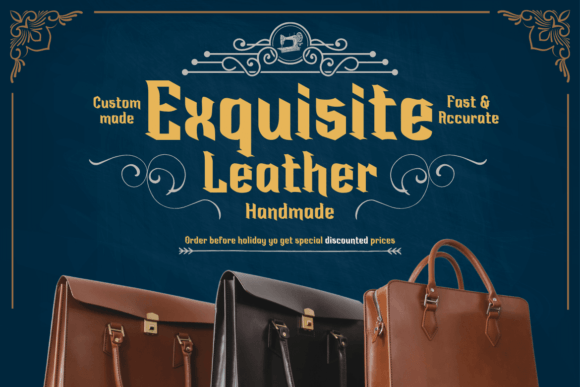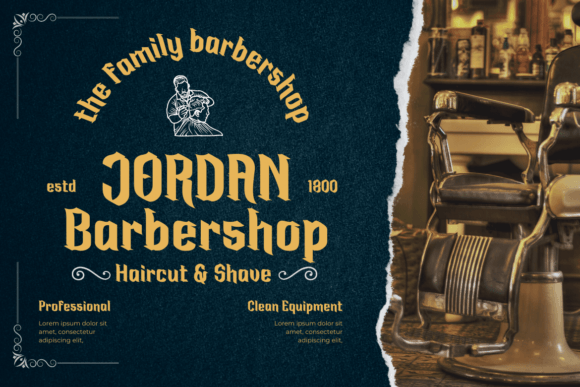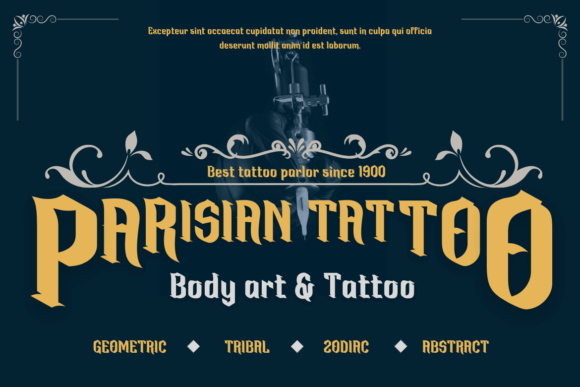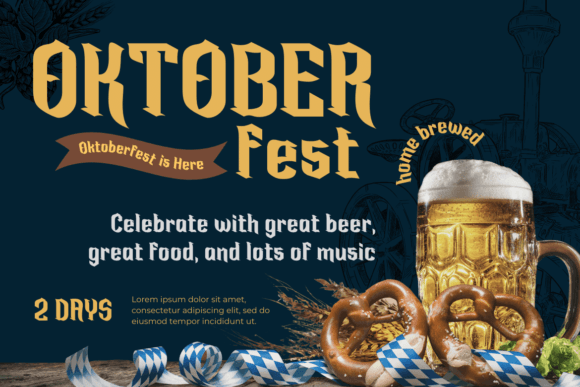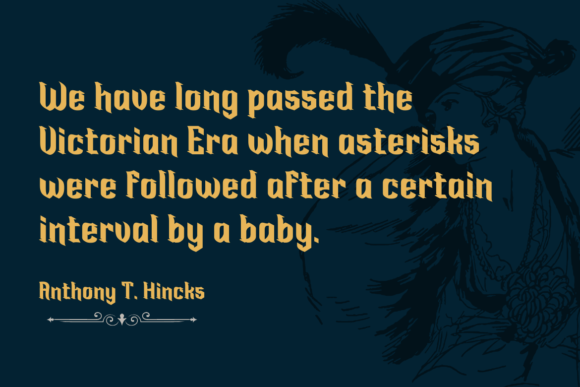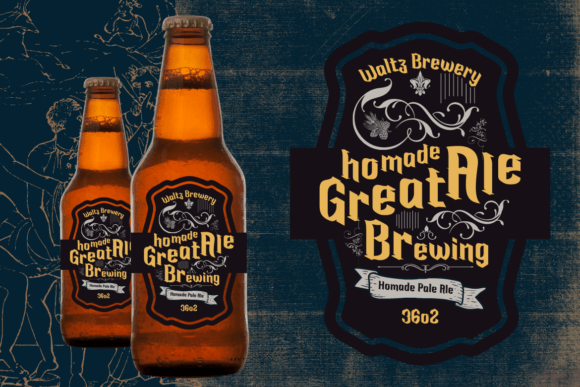
Introduction to Krinah Font
For any project that calls for a Gothic touch, the Krinah font is ideal.
Krinah is the way to go whether youโre looking for a font for your logo, label, badge, or your newest music video or movie Labels, vintage posters, and other items can all be enhanced with stylish blackletter font.
Key Features of Krinah Font
Why Choose Krinah Font?
Krinah Font offers exceptional quality and versatility, making it a valuable addition to your design toolkit. Whether you’re creating for personal projects or commercial use, Krinah Font delivers professional results.